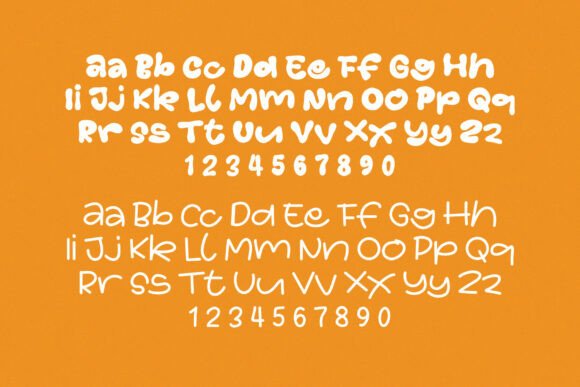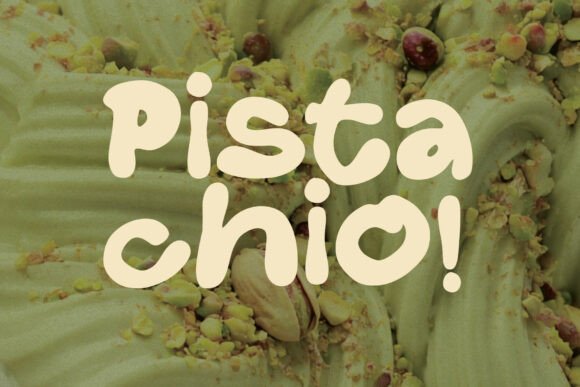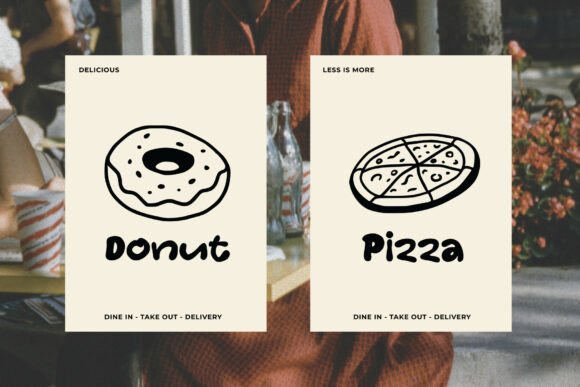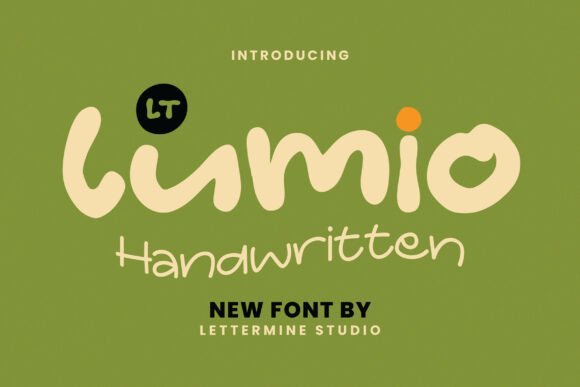
Introduction to Lt Lumio Font
LT Lumio – Handwritten Font LT Lumio is a handwritten font with a bold, friendly, and natural writing style.
Featuring rounded letterforms and smooth curves, this font brings a warm and cheerful personality that feels personal and approachable in any design Key Features: Uppercase & Lowercase Bold & Regular styles Multilingual support Punctuation Included Files: OTF TTF WOFF WOFF2 Note: Create warm, friendly, and playful designs with the natural handwritten charm of LT Lumio.